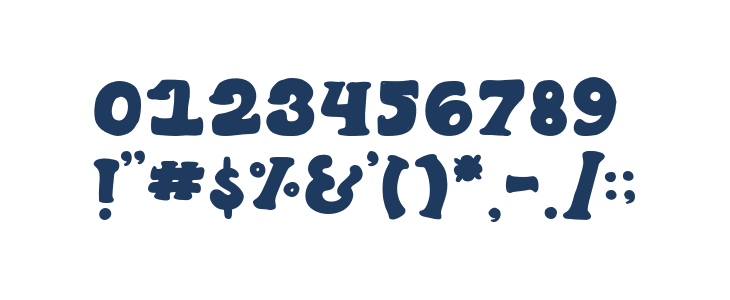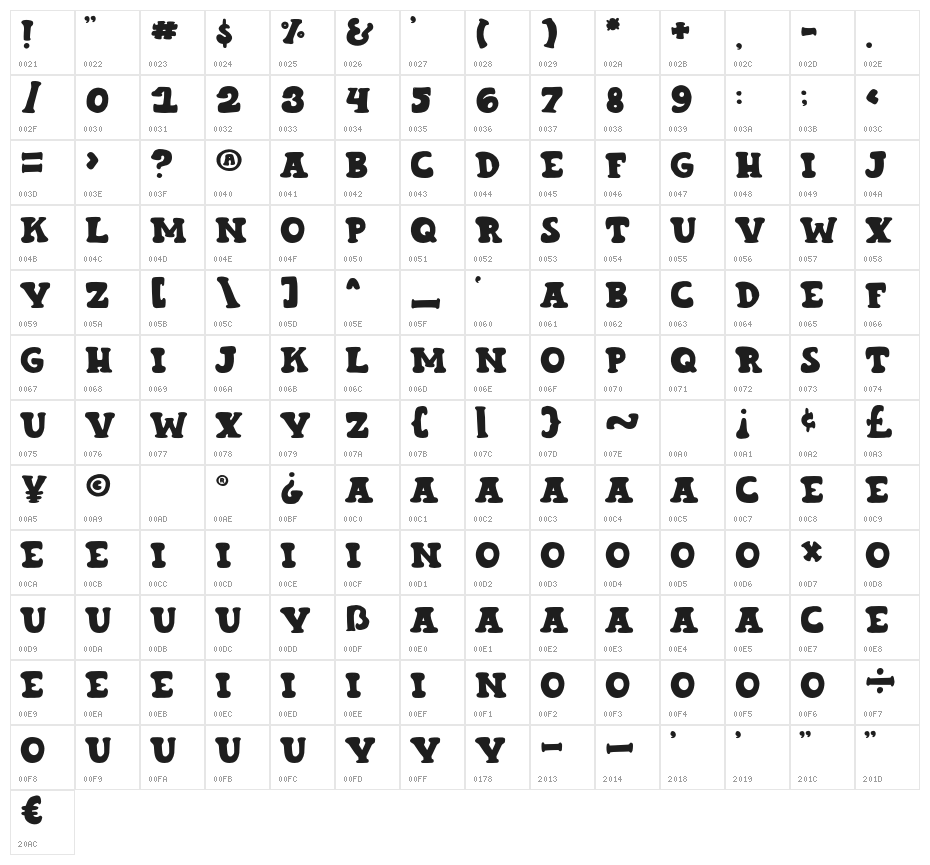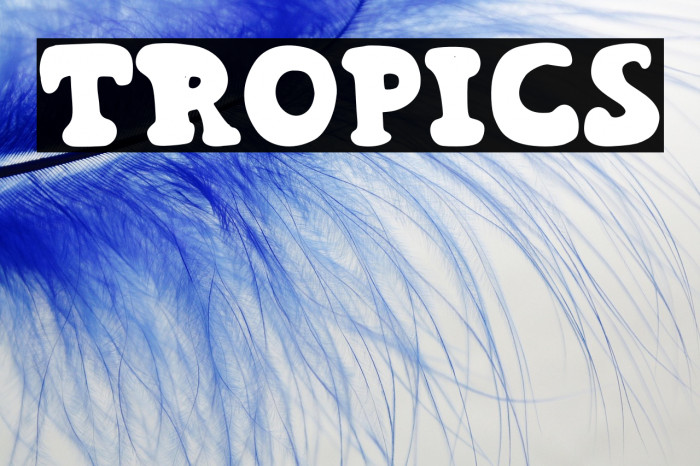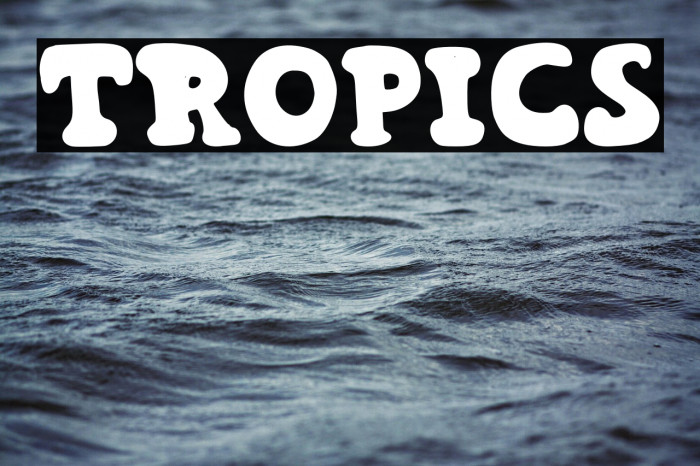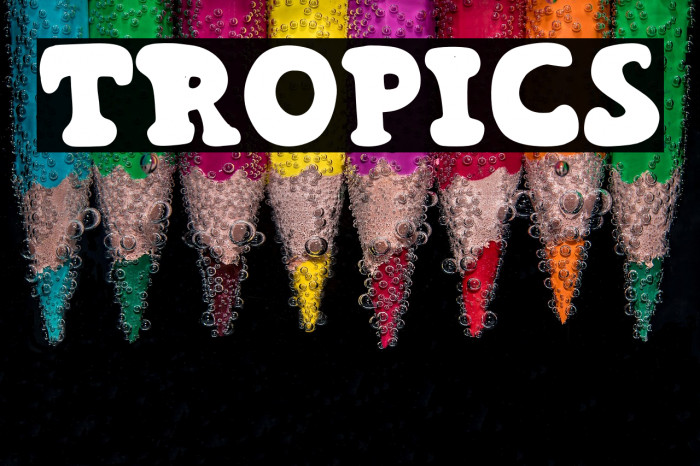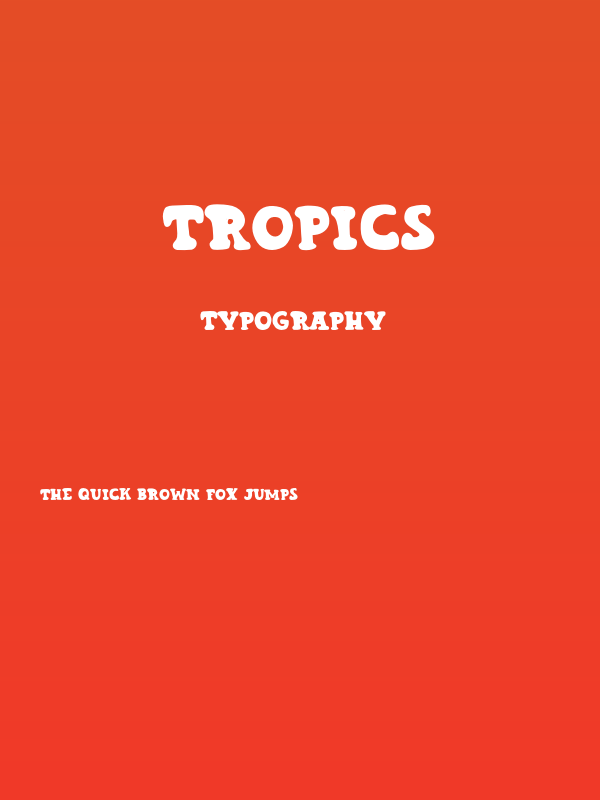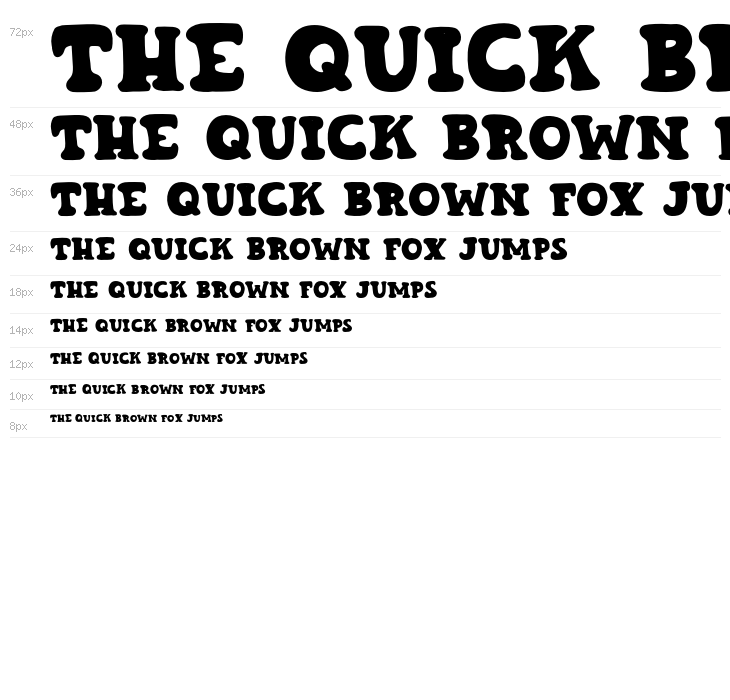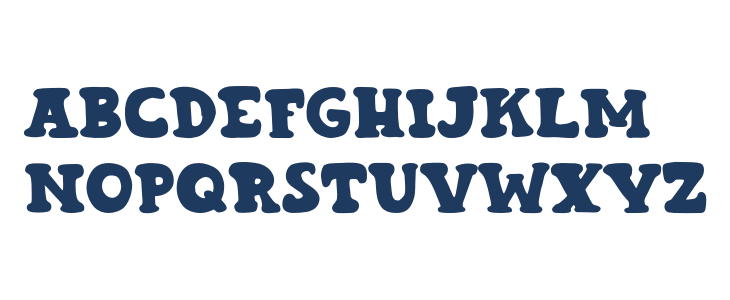
Tropics Font
Tropics Description
This font features bold, rounded characters with a playful and friendly appearance. The letters are thick and have a slightly uneven, organic shape that adds a whimsical touch. The numbers and special characters maintain this playful style, making the font suitable for creative and informal designs. The overall look is reminiscent of hand-drawn or crafted lettering, which gives it a unique and approachable feel. The font's boldness ensures high readability, while its distinctive style makes it stand out in any design context.
| Overall Style | Playful, Whimsical, Organic |
| Proposed Projects | Ideal for children's books, playful branding, event posters, and creative packaging designs. |